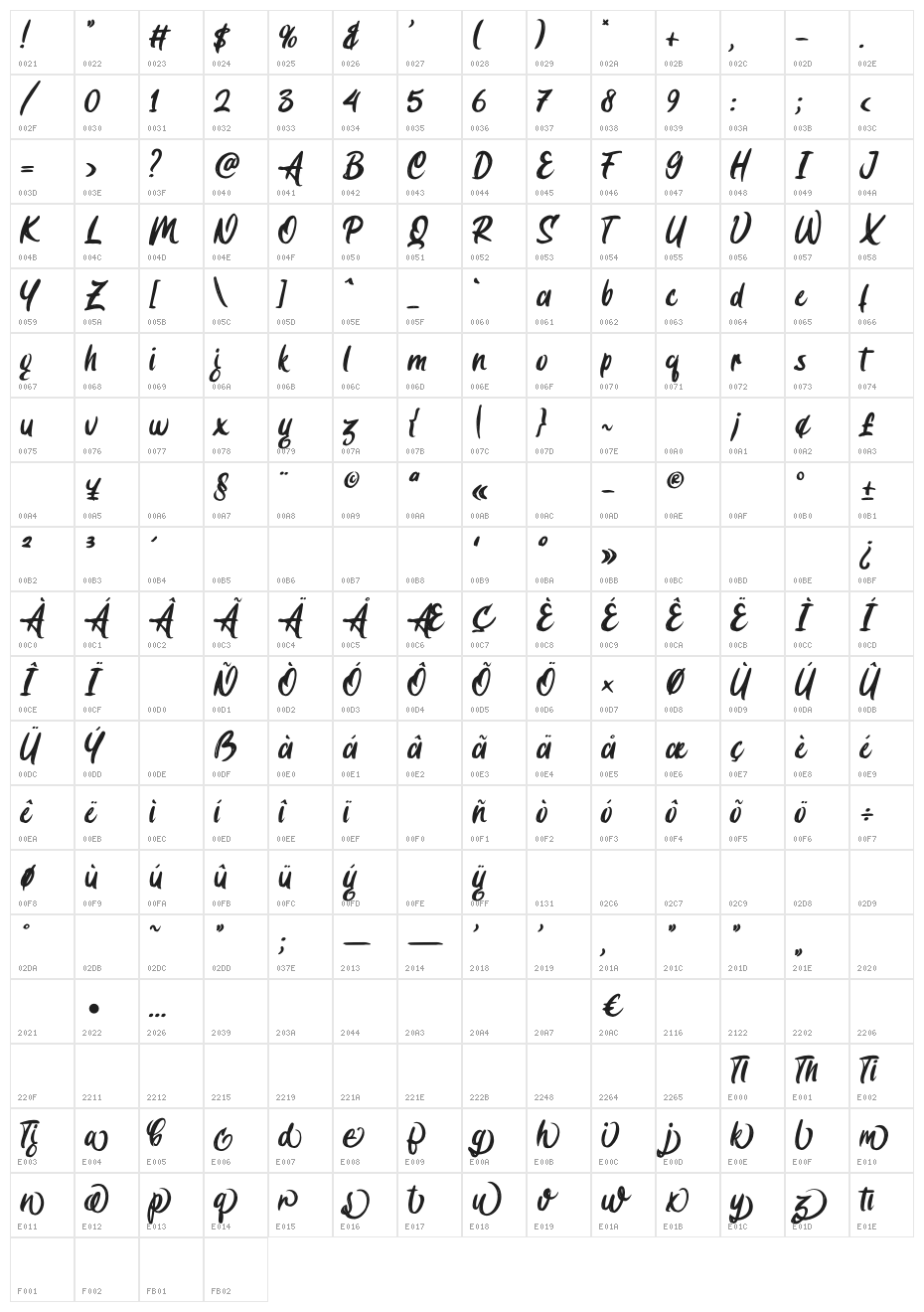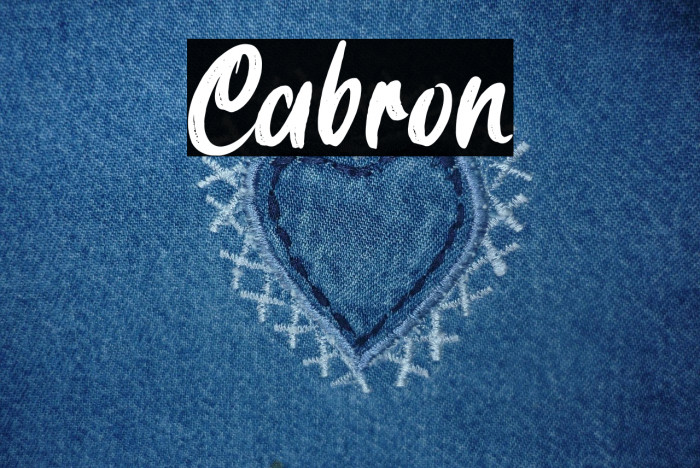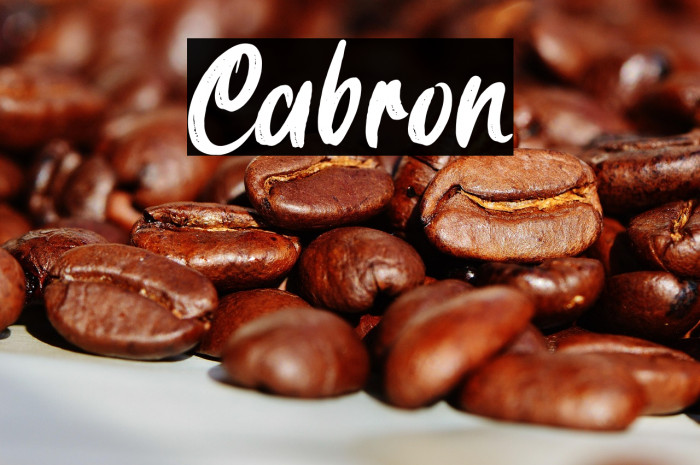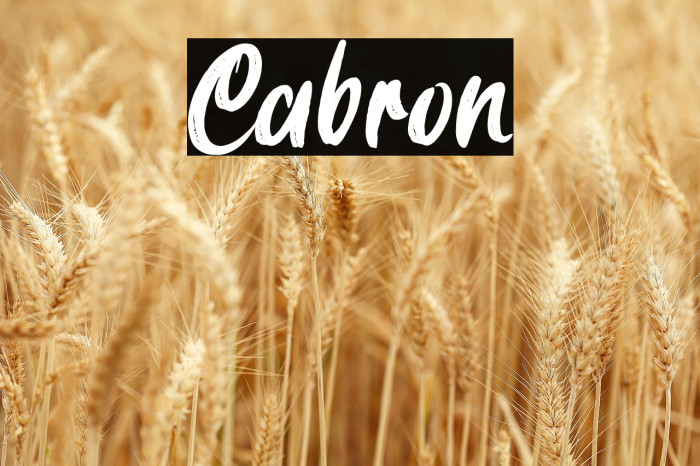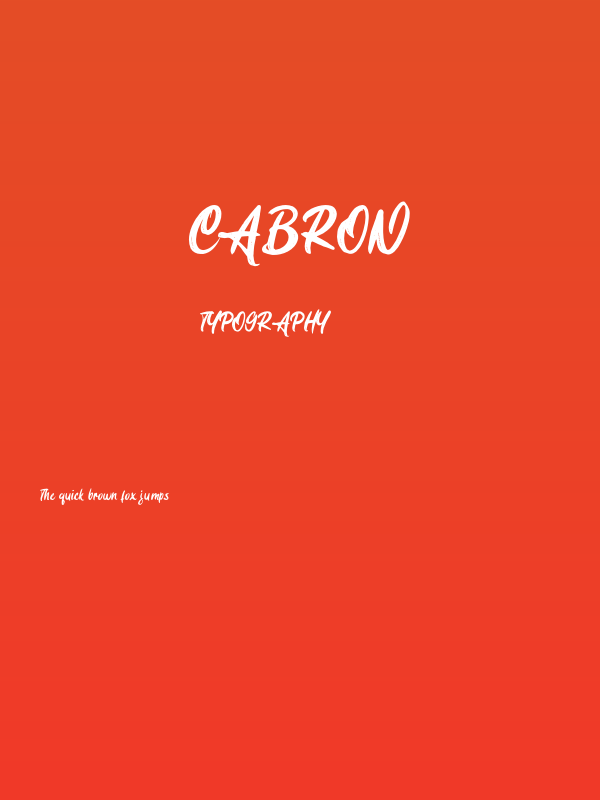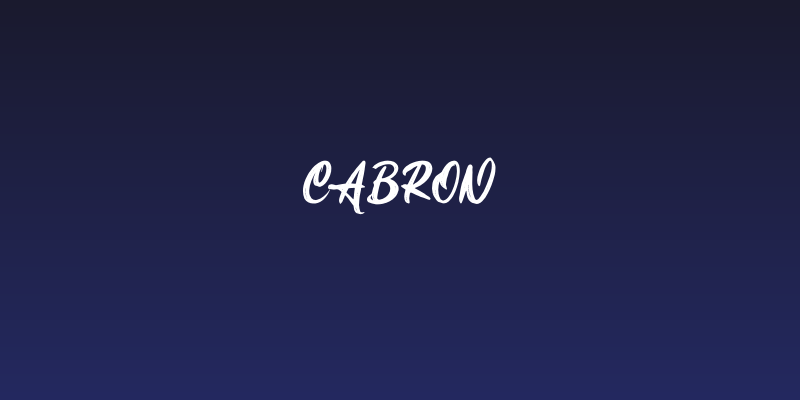
Cabron Font
Cabron Description
This font features a bold, expressive script style with a dynamic and energetic flow. The letters are crafted with a brush-like appearance, giving them a hand-painted feel. The uppercase and lowercase characters maintain a consistent style, with sweeping curves and varying stroke widths that add a sense of movement. The numbers and special characters are equally expressive, complementing the overall aesthetic. This font's boldness and artistic flair make it stand out, perfect for creative and impactful designs.
| Use Case | Logos, Headlines, Posters |
| Proposed Projects | Ideal for branding, poster design, invitations, and artistic projects requiring a bold, creative touch. |